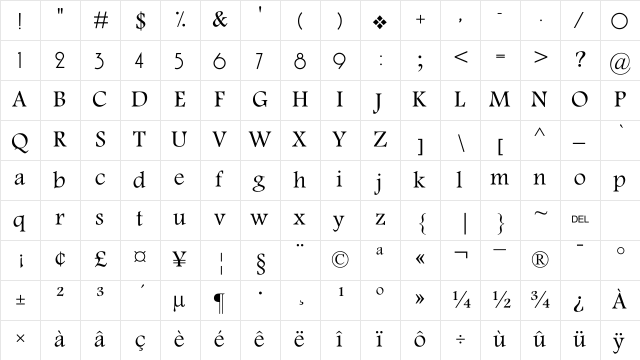
khalaad al-arabeh 2 Font Preview
Design Context for khalaad al-arabeh 2 Typeface
khalaad al-arabeh 2 takes a measured approach to typography — its balanced proportions and neutral character make it a reliable workhorse for both digital and print work.